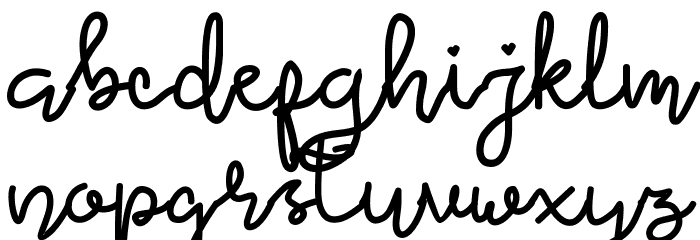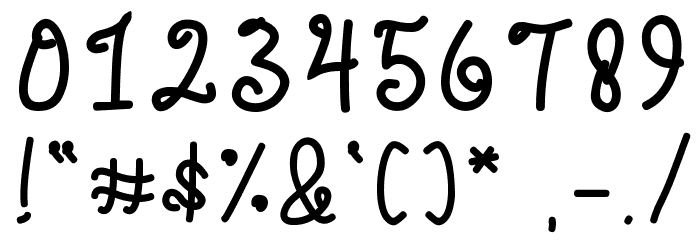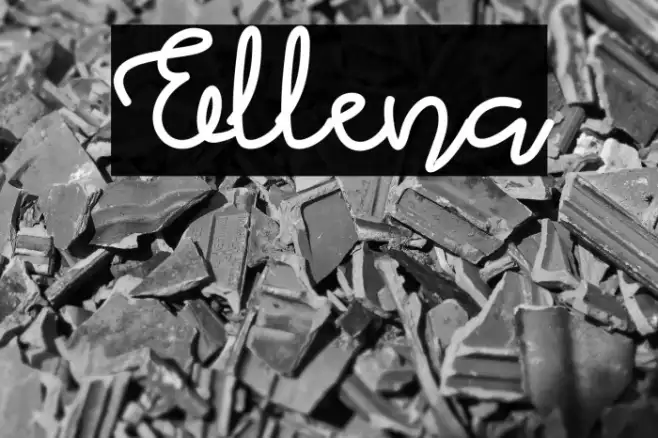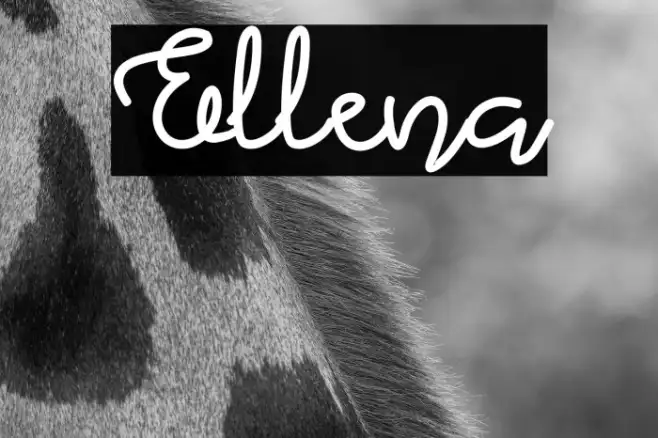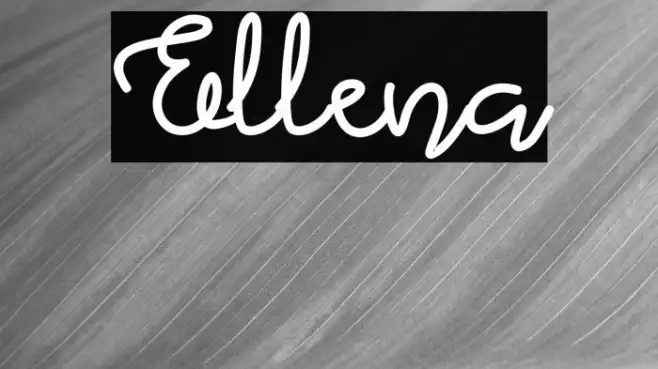
Ellena Font
This font features a whimsical and playful script style with a hand-drawn appearance. The uppercase letters are characterized by their decorative swirls and loops, giving them a unique and artistic flair. The lowercase letters maintain a consistent flow with a slightly more restrained design, yet they still exhibit a charming, casual elegance. The numerals are clear and legible, with a slight tilt that adds to the overall playful nature of the font. Special characters are creatively integrated, maintaining the font's cohesive style. This font is perfect for projects that require a touch of creativity and personality.
A whimsical, hand-drawn script font with decorative swirls and playful elegance.
- Proposed Projects: Ideal for greeting cards, invitations, branding, and creative projects that require a personal touch.
- Use Case: Logos, Invitations, Greeting Cards